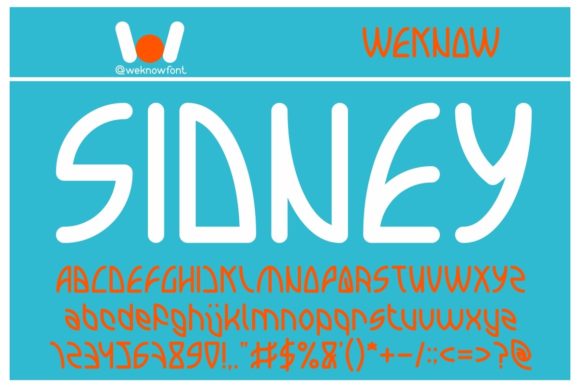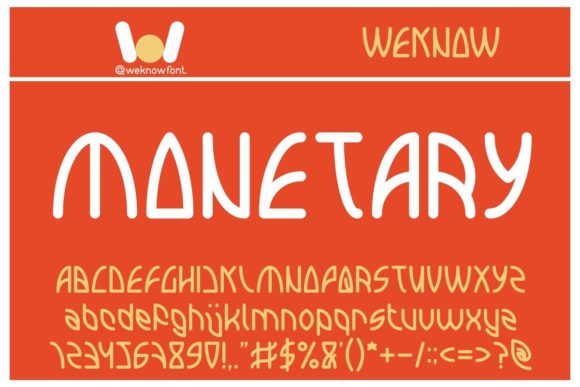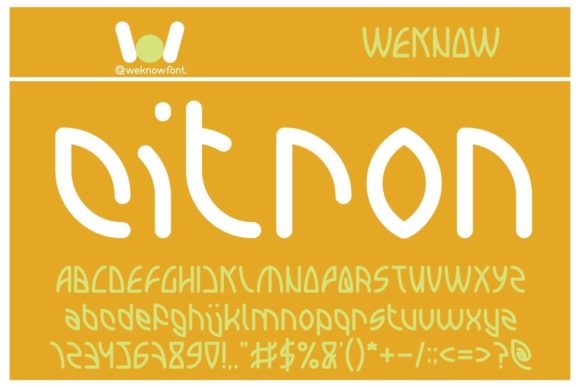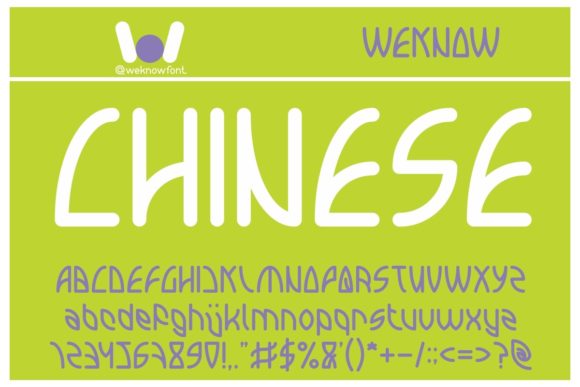
The Moment of Creative Inspiration
Have you ever been stuck in a design rut, scrolling through endless fonts, trying to find the perfect one to elevate your project? I know I have. It’s like searching for a needle in a haystack, until suddenly, you stumble upon a font that makes everything click into place. For me, that moment came when I discovered the Interplanetary Font.
This cool and casual display font is more than just a pretty face – it’s a game-changer for designers. With its versatility and endless possibilities, the Interplanetary Font is perfect for anything from posters to flyers, and even print projects. Whether you’re a seasoned pro or just starting out, this font is sure to bring your designs to life.
Key Features of Interplanetary Font
- Unique Characteristics: Interplanetary Font features a unique blend of geometric and organic shapes, creating a futuristic and otherworldly aesthetic.
- Glyph Set: The font includes a comprehensive glyph set, covering a wide range of languages, including Latin, Cyrillic, Greek, and more.
- Weight and Style Options: Interplanetary Font is available in multiple weights (Light, Regular, Bold, Black) and styles (Regular, Italic, Bold Italic), providing flexibility for various design applications.
- Scalability: The font is designed to be highly scalable, ensuring that it looks great in various sizes, from small captions to large headlines.
Interplanetary Font Review
Overall, I think the Interplanetary Font is an interesting and unique choice for designers looking to add some extraterrestrial flair to their projects. Here are a few things that work well:
- ✨ Customizability: The font comes in a variety of styles and weights, which makes it easy to tailor to the specific needs of your project.
- ✨ Versatility: It’s suitable for a wide range of applications, from headlines to body text, and even logos.
- ✨ Creativity: The font’s unusual design is sure to spark creativity and inspire new ideas.
- ⚠️ Limited legibility: At smaller font sizes, the Interplanetary Font can be difficult to read, especially for those with visual impairments.
- ⚠️ Limited character set: The font doesn’t support all languages, which may be a concern for designers working on multilingual projects.
- ⚠️ Compatibility issues: Some users have reported compatibility problems with certain software and operating systems.
Overall, I think the Interplanetary Font is a great choice for designers looking for a unique and creative solution. However, it’s essential to weigh the pros and consider the specific needs of your project before making a decision.
For a space-themed design, use the Interplanetary Font to create a futuristic feel. Combine it with other fonts for a unique and eye-catching effect.
Use the Interplanetary Font to add a touch of futurism to your presentations or documents.
To get the most out of the Interplanetary Font, experiment with different font sizes and styles. Combine it with other fonts for a unique effect. Use it in combination with other design elements, such as shapes and graphics, to create a visually appealing design.
The Interplanetary Font is commonly used in space-themed designs, such as:
- Space exploration posters.